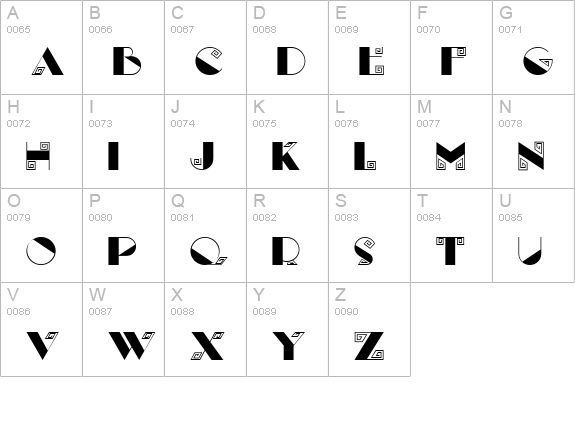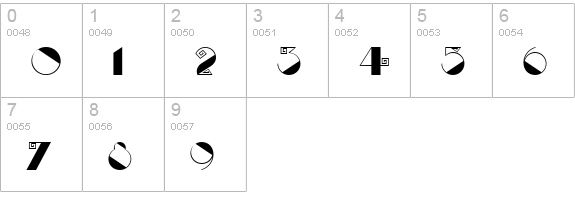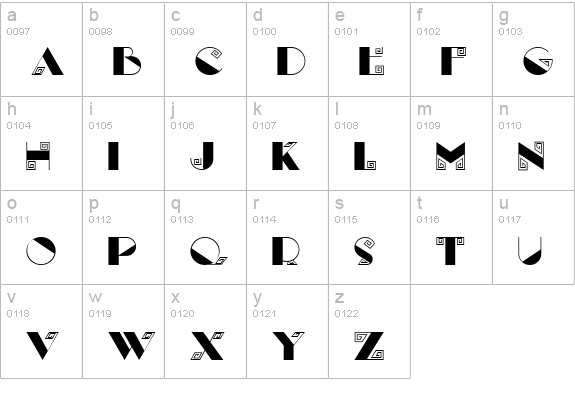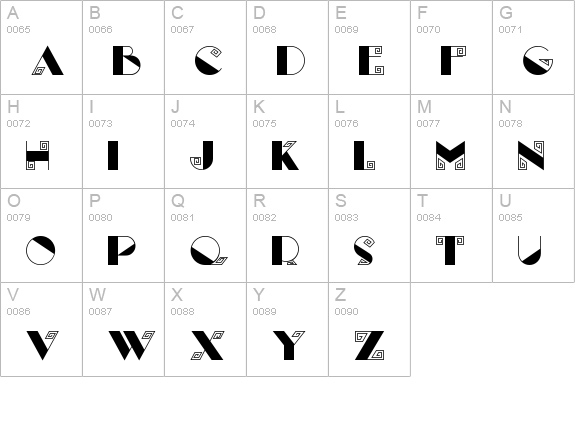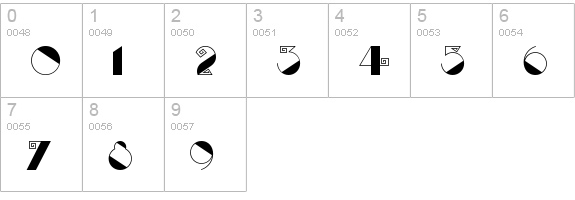
Labyrinth NF Font Details
Labyrinth NF is a captivating and enigmatic font that will transport you to a world of mystery and intrigue. Its intricate design and unique twists and turns draw the eye and captivate the imagination. With its sharp angles and elaborate curves, this font will add a touch of magic to any project. And the best part? Labyrinth NF is completely free to download at FontsMarket.com. Embrace the enigma and add a touch of mystery to your designs with this stunning font. Whether you're working on a poster, logo, or any other creative project, Labyrinth NF is sure to make a bold statement. Download it today and let your creativity roam free!